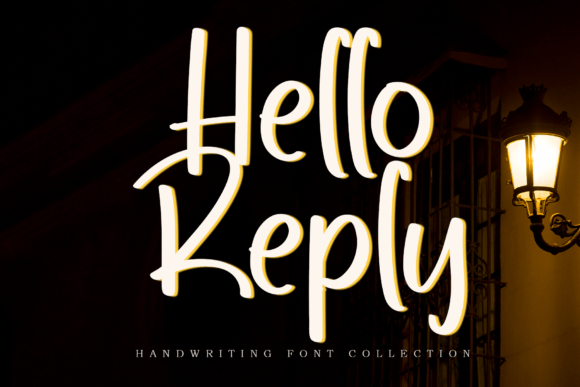
Introducing the Hello Reply Font, a script typeface meticulously crafted by Black line. If you're on the hunt for the best font for shirt design, your search ends here! With its stunning versatility and modern appeal, Hello Reply is more than just a font – it's a work of art.
Imagine your photography branding, watermarking, and website design reaching new heights with this elegant and contemporary typeface. Its clean lines and sleek aesthetic effortlessly capture the essence of your creative journey, adding a touch of sophistication to your visual storytelling.
Hello Reply is not your average font. It's a powerful tool that breathes life into your designs, drawing attention and leaving a lasting impression on your audience. Its captivating typography will make your messages stand out, ensuring that your brand is remembered long after it's seen.
But what sets Hello Reply apart from the rest? Its versatility knows no bounds. Whether you're working on a professional project or a personal endeavor, this font adapts effortlessly to any context. From bold headlines to delicate details, Hello Reply has the ability to transform any piece of text into a visual masterpiece.
Unleash your creativity with Hello Reply's extensive character set and alternate letterforms. Each stroke is carefully designed to bring out the unique personality of your words, allowing you to express yourself like never before. Let your imagination run wild as you experiment with different letter combinations and bring your visions to life.